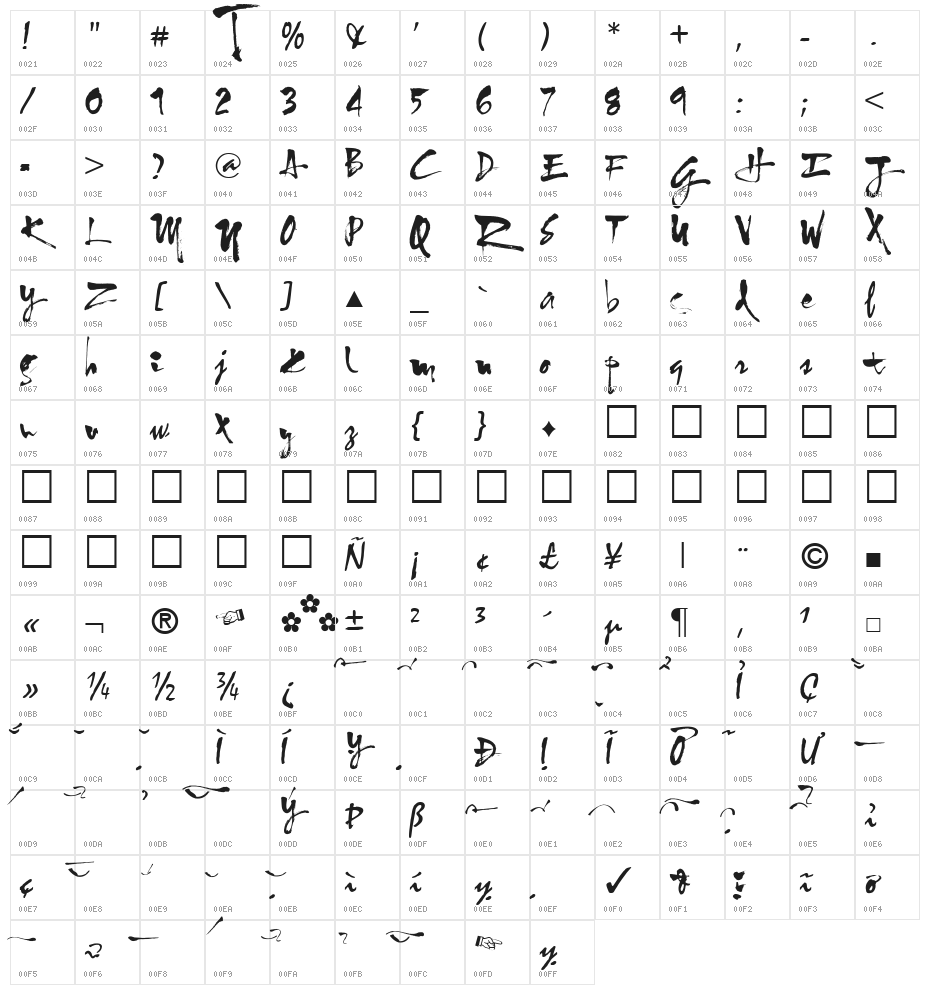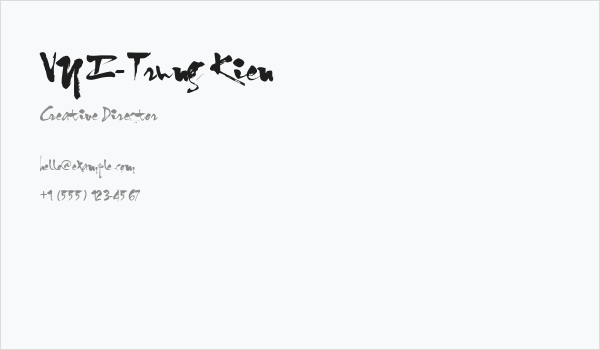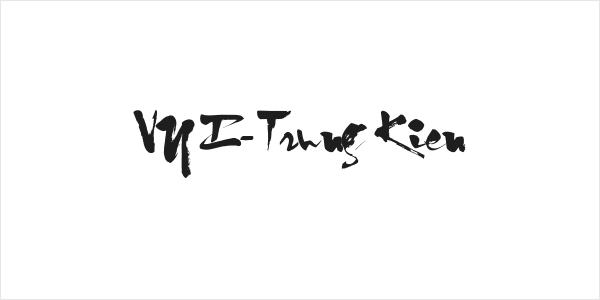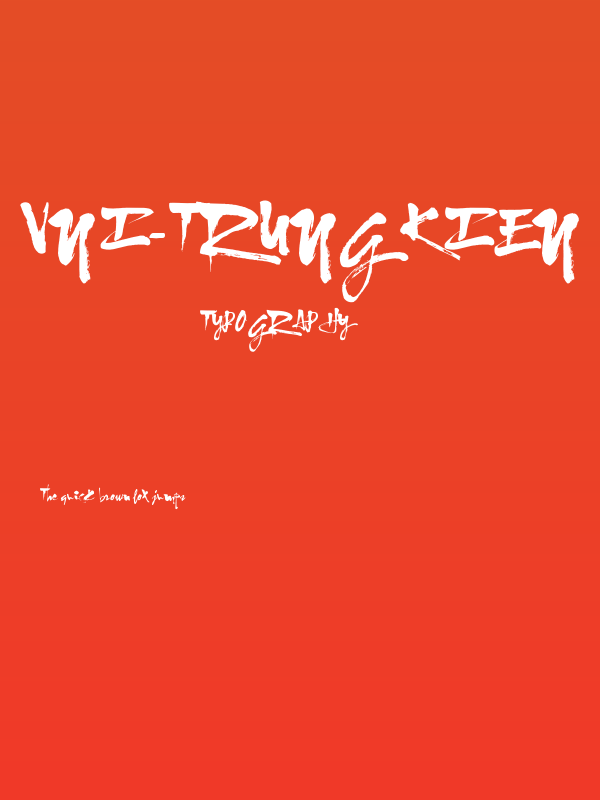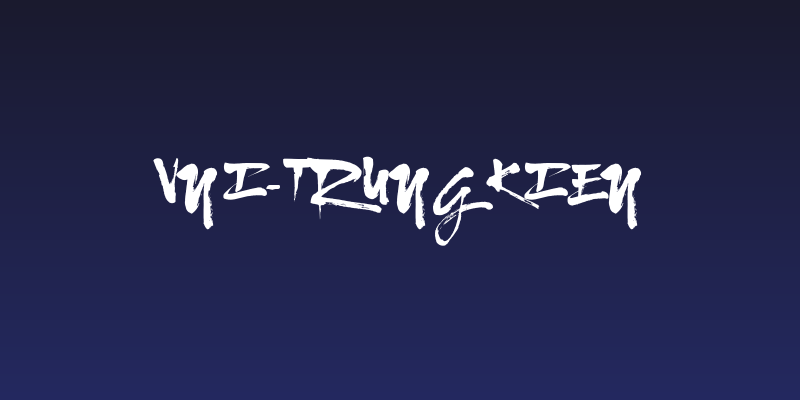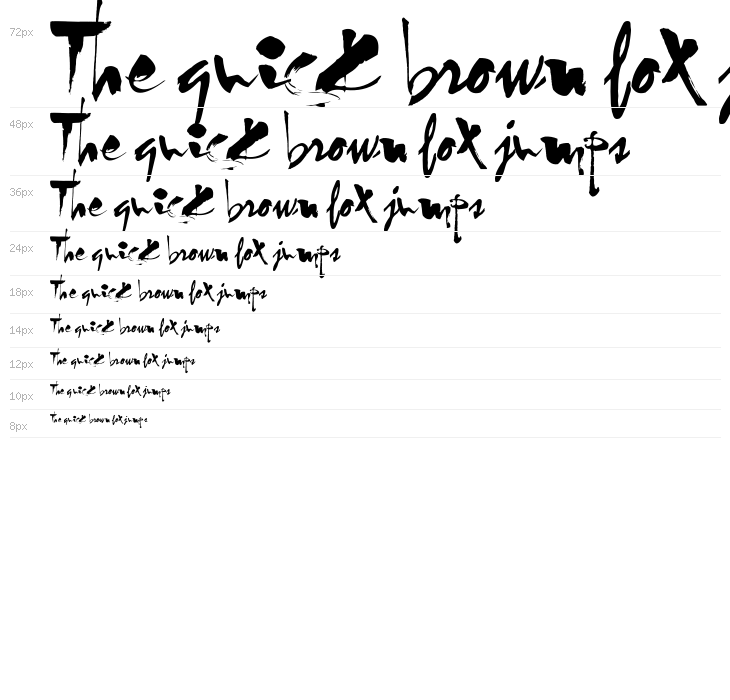
VNI-Trung Kien Font
VNI-Trung Kien Description
This font exudes a bold and expressive style, reminiscent of dynamic brush strokes. Each character is crafted with a sense of movement and energy, creating a lively and artistic appearance. The uppercase letters are particularly striking, with varying thicknesses and angles that convey a sense of spontaneity. Lowercase letters maintain this fluidity, offering a cohesive yet free-spirited look. Numbers and special characters follow suit, adding to the overall artistic flair. The font's unique style makes it ideal for projects that require a touch of creativity and individuality.
Overall StyleArtistic, Expressive
Use CaseHeadlines, Posters, Creative Branding
Proposed ProjectsIdeal for artistic projects, posters, branding, and any design needing a creative flair.